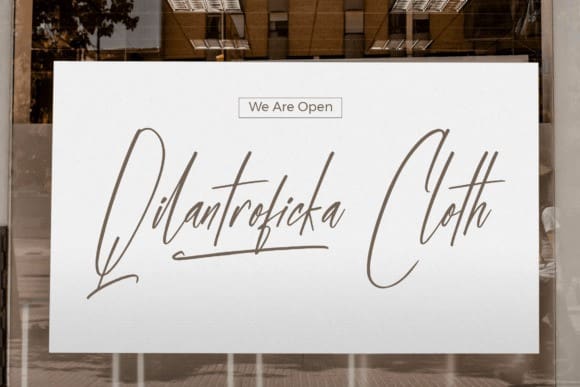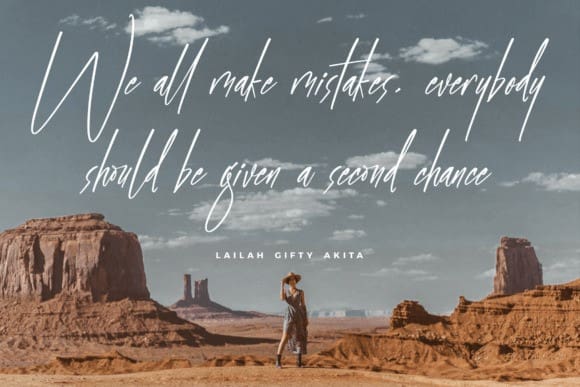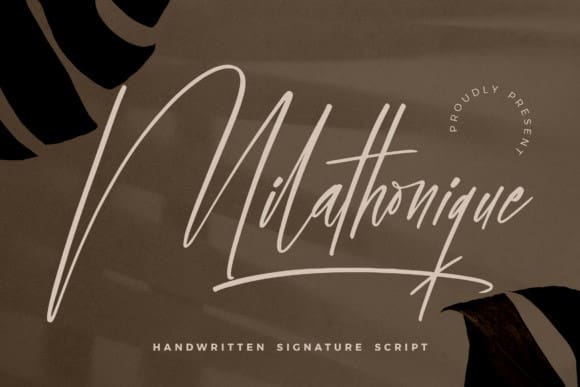
Milathonique Font
Milathonique Font – Handwritten Signature Script suitable for any projects such as logos, branding projects, homeware designs, product packaging, mugs, quotes, posters, shopping bags, t-shirts, book covers, name cards, invitation cards, greeting cards, labels, photography, watermark, special events, and all your other lovely projects that need a beautiful script taste.